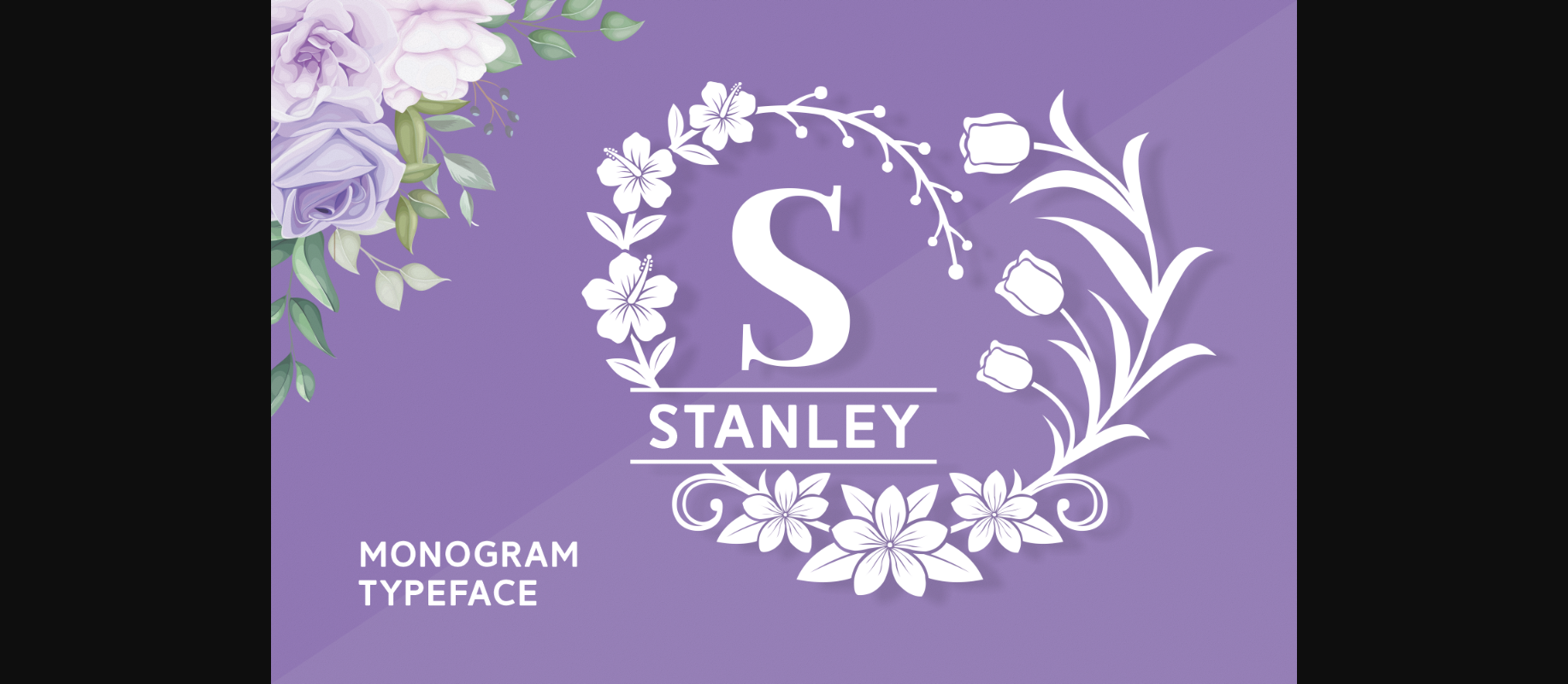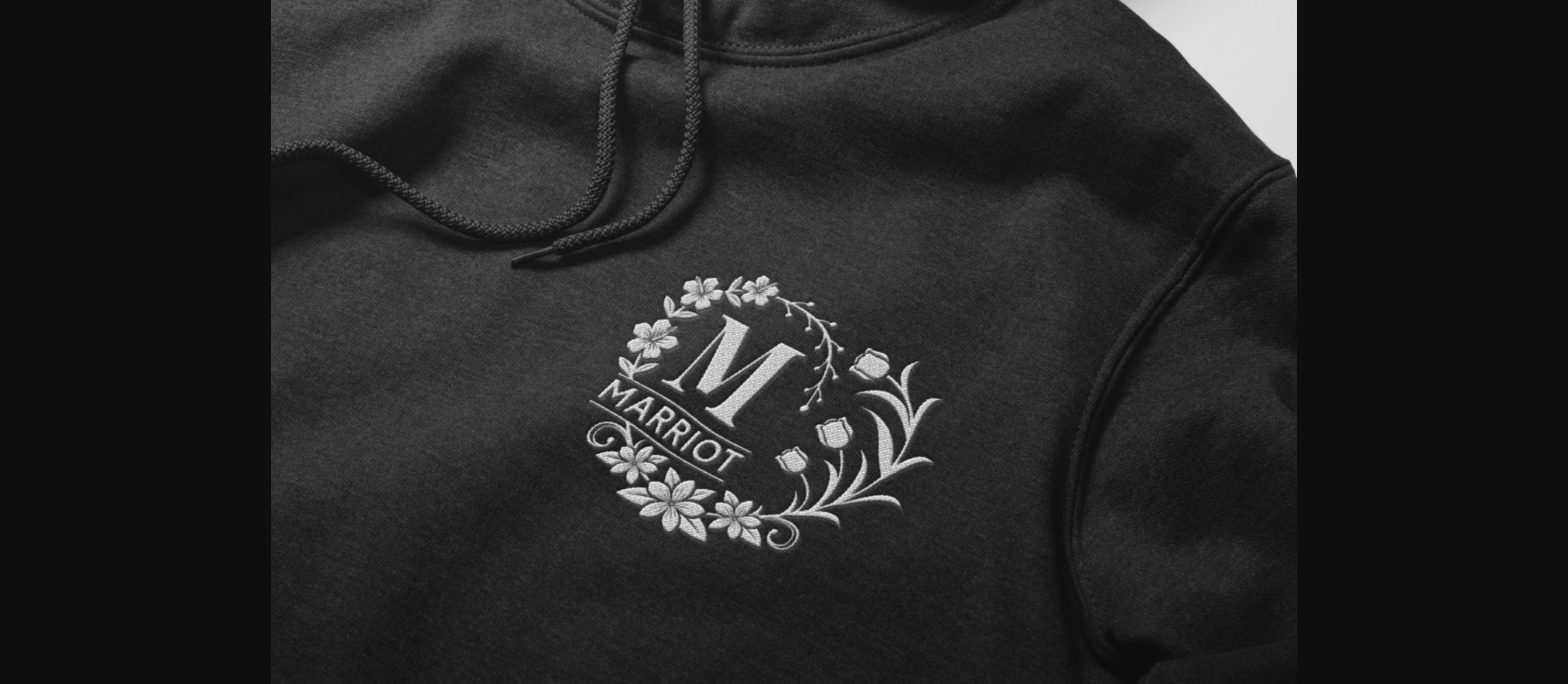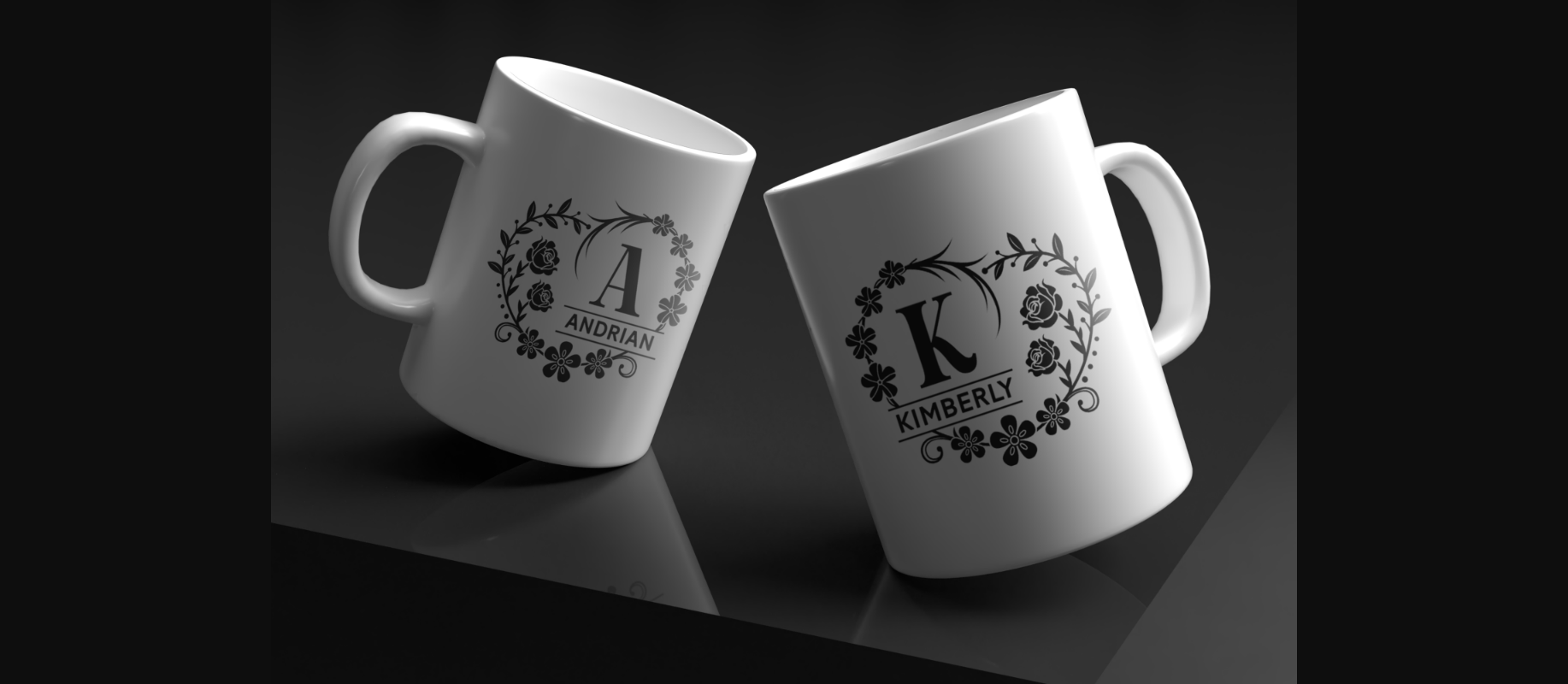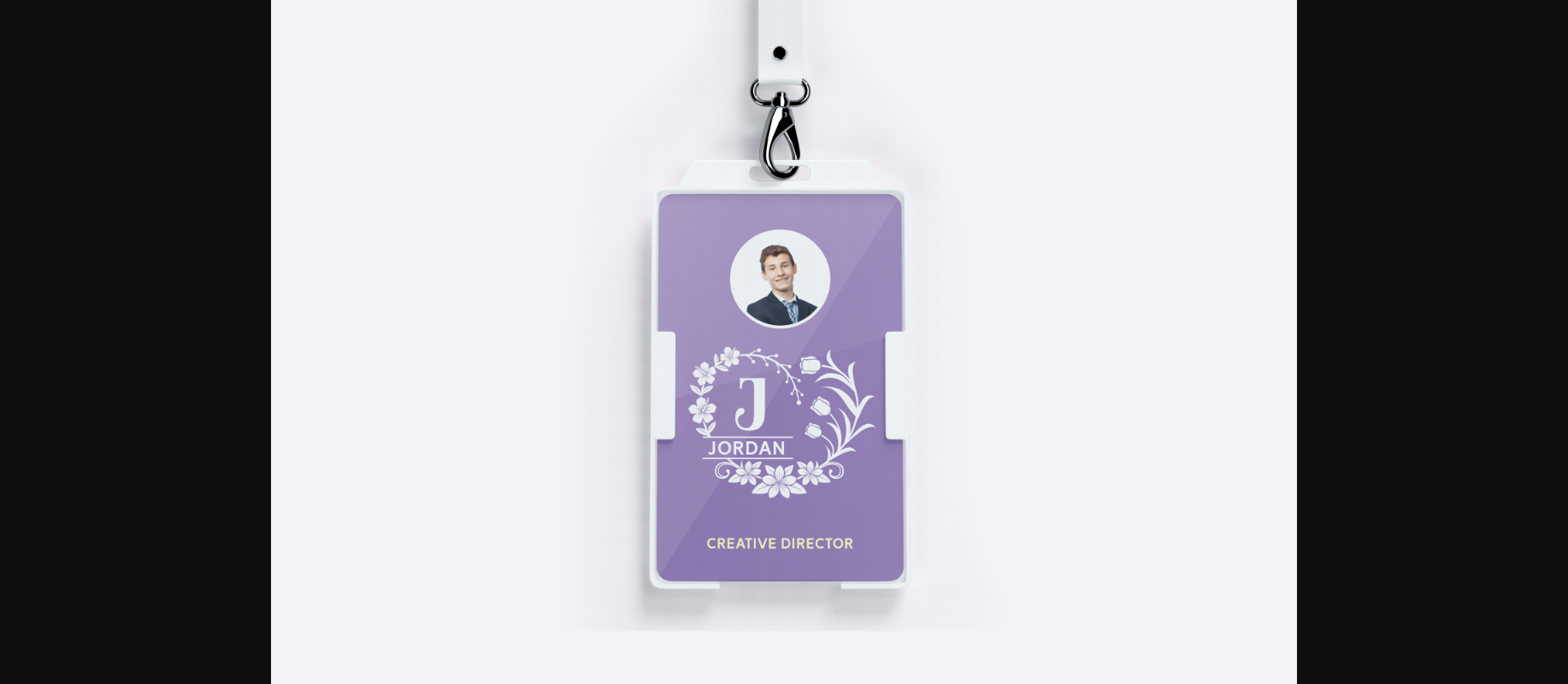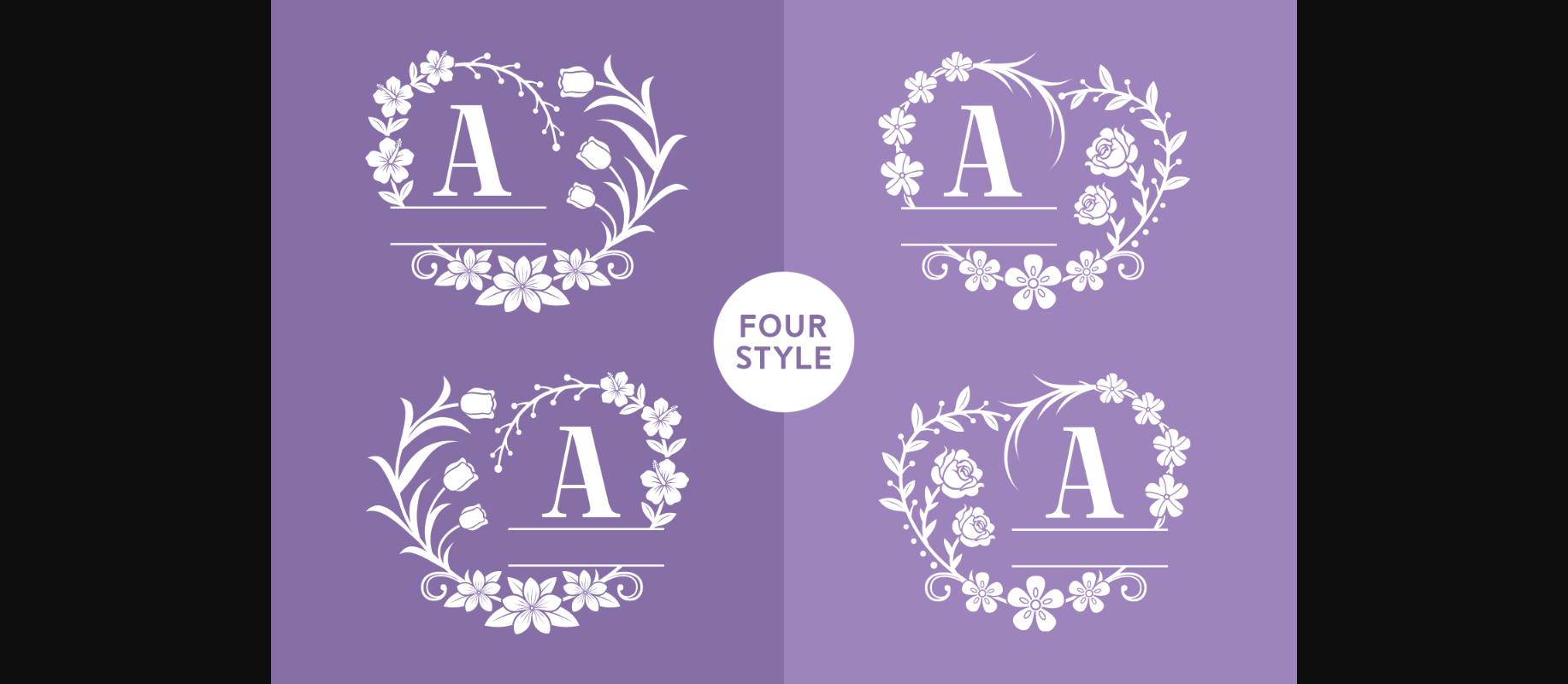
Stanley Font
About Stanley Font
Stanley is a stunning and elegant monogram typeface. The graceful letters surrounded by beautiful flower wreaths come in four different styles, so you can choose what’s best for your project. Use these lovely floral monograms for wedding designs, invitations, fabric prints, gift-making, and many more.